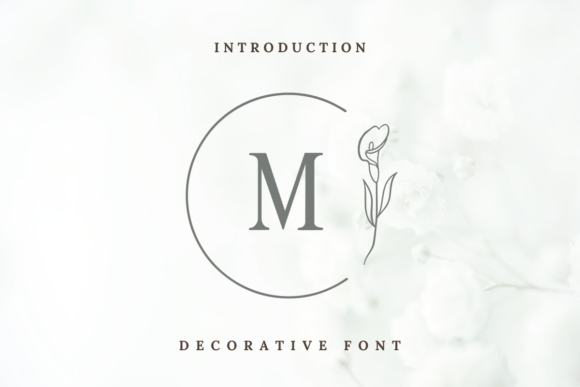
The Elegance of Calla Monogram: A Designer’s New Best Friend
I still remember the project that led me to discover the Calla Monogram Font. I was working on a wedding design for a lovely couple, and they wanted a custom logo that exuded elegance and sophistication. As I scrolled through font after font, I couldn’t shake the feeling that something was missing – until I stumbled upon Calla Monogram. Its delicate calla lily elements and minimalist charm instantly won me over, and I knew I had found the perfect fit.
• ✨ Elegant and sophisticated design that’s perfect for high-end branding
• ✅ Delicate calla lily elements add a touch of romance and whimsy
• 💕 Highly customizable with OpenType features and glyphs
• 🎨 Versatile and suitable for various design projects, from logos to wedding designs
While Calla Monogram is an exceptional font, there are a few things to keep in mind:
• ⚠️ Some characters may require manual kerning for optimal spacing
• 🤔 Limited availability of certain glyphs in non-OpenType compatible software
The Story Behind Calla Monogram
Calla Monogram was designed by a talented typographer who drew inspiration from the elegant calla lily flower. With a passion for creating beautiful and functional fonts, the designer aimed to craft a typeface that would add a touch of sophistication and romance to various design projects. The result is a stunning font that has captured the hearts of designers and crafters alike.
Q: What makes Calla Monogram suitable for wedding designs?
A: Calla Monogram’s delicate calla lily elements and elegant design make it a perfect fit for wedding designs, adding a touch of romance and sophistication to invitations, stationery, and other wedding materials.